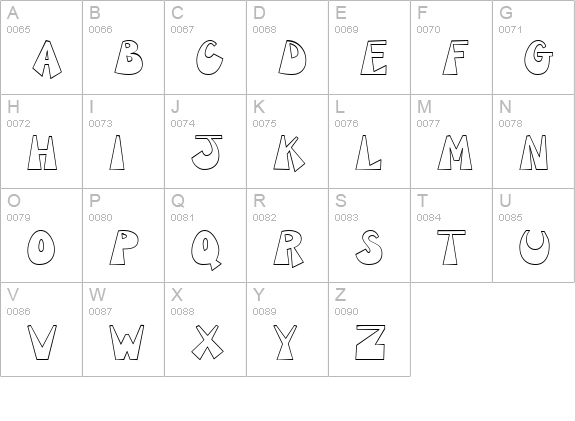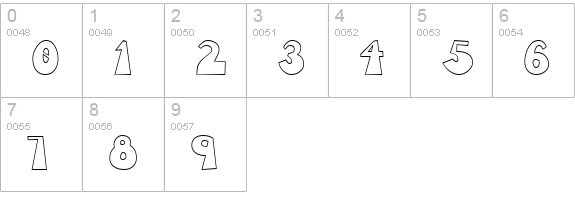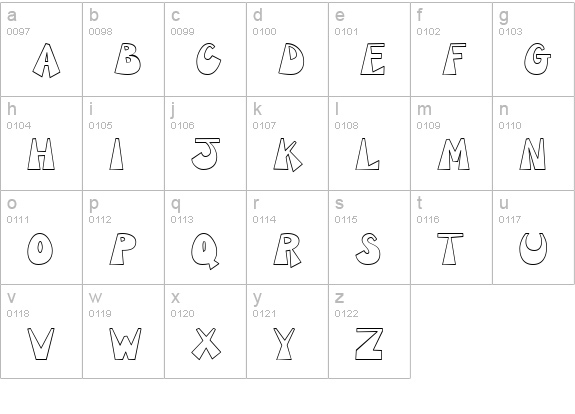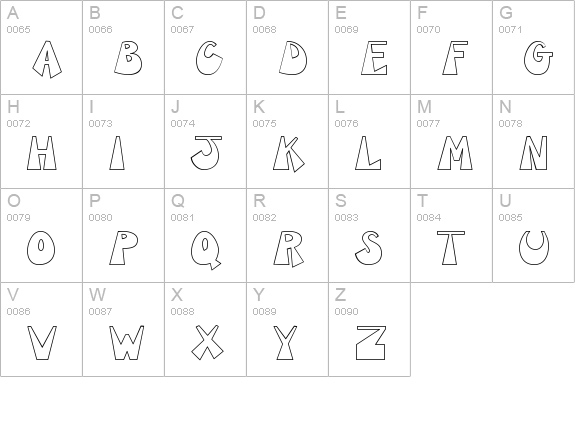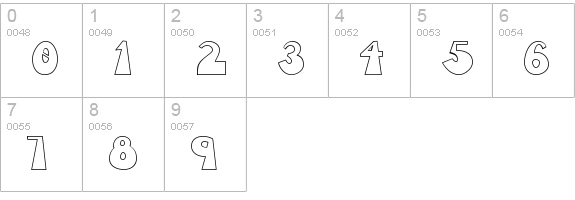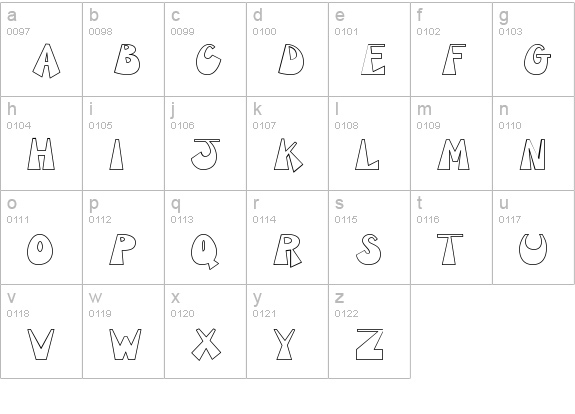
CK Groovy Font Details
CK Groovy font is a fun and playful typeface that exudes a retro vibe with its groovy curves and whimsical appearance. This font is perfect for adding a touch of retro charm to your designs, whether it be for posters, invitations, or branding projects. Its smooth lines and unique style make it stand out from the crowd, adding a sense of nostalgia to any project. The best part about CK Groovy font is that it is completely free to download at FontsMarket.com. This means you can easily add this funky font to your collection without any cost, allowing you to unleash your creativity without any restrictions. So why wait? Download CK Groovy font today and let your designs groove to a whole new beat!